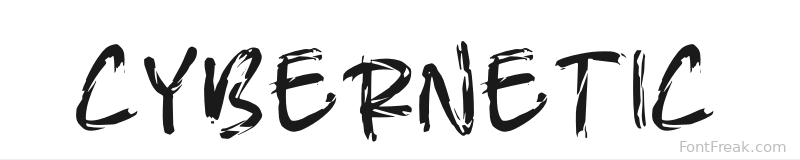
CYBERNETIC
The CYBERNETIC font by Perspectype Studio is a striking display typeface that embodies a modern, futuristic aesthetic. Released in 2021, this font belongs to the decorative category, making it an excellent choice for projects that demand attention and creativity. The visual characteristics of CYBERNETIC include a bold stroke weight and dynamic, irregular brush-like strokes that evoke a sense of motion and energy. The contrasting elements in its design create an intriguing visual rhythm, while the generous spacing between letters enhances readability and impact.
This font is ideal for a variety of use cases, including movie posters where a dramatic flair is essential, tech-themed event flyers that require a contemporary touch, and branding for gaming companies looking to convey innovation. Additionally, it can be effectively utilized in social media graphics aimed at youth culture, as well as merchandise design for apparel or accessories that seek to attract a trend-savvy audience.
The target audience for CYBERNETIC includes graphic designers who are in search of unique typefaces to elevate their projects, small business owners who want to make a bold statement in their marketing materials, and content creators who aim to capture a modern vibe in their visual storytelling.
What sets the CYBERNETIC font apart is its ability to blend artistic flair with functional design, making it a versatile option for various creative applications. Its free availability allows designers to experiment freely, enabling them to incorporate this eye-catching typeface into their work without constraints. For those looking to enhance their projects with a touch of futuristic creativity, the CYBERNETIC font free download is a fantastic opportunity to explore new design possibilities.